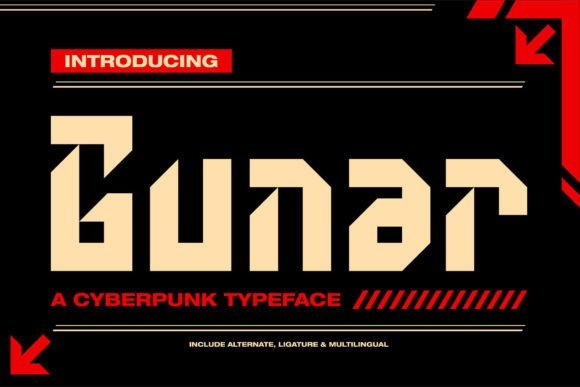
Introduction to Gunar Font
Gunar is a bold and eccentric display font that adds a playful and quirky touch to any design.
Its unique and unconventional letterforms are perfect for making a bold statement and grabbing attention Use it to add personality and character to your designs.